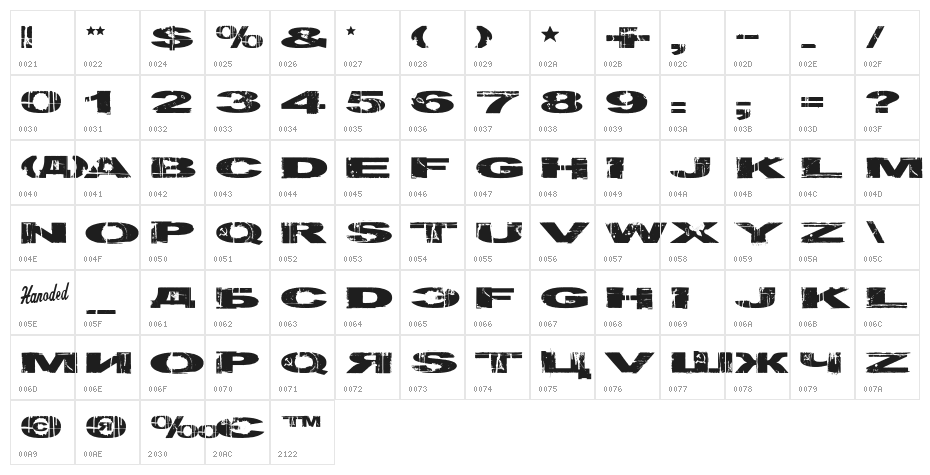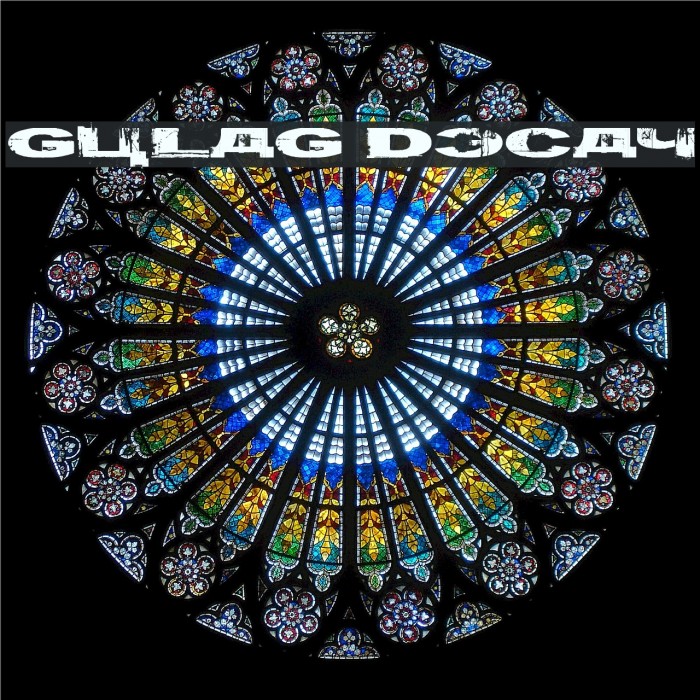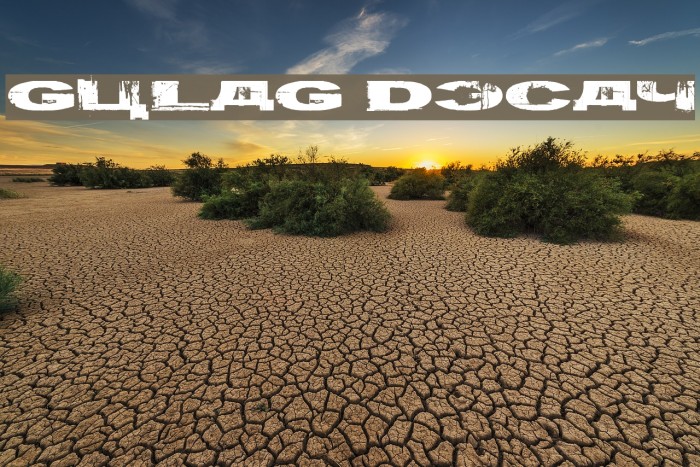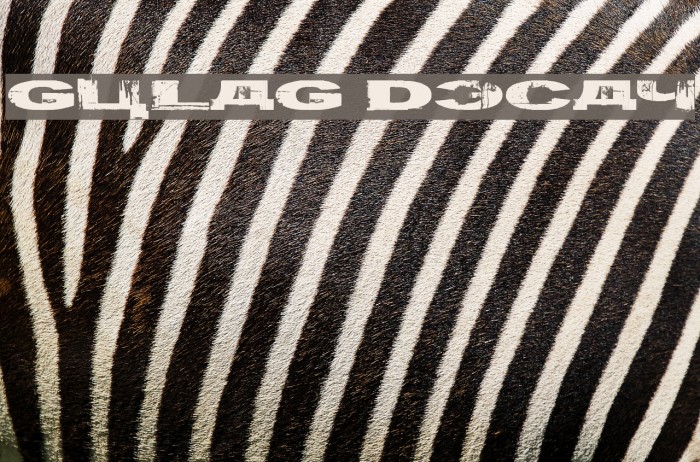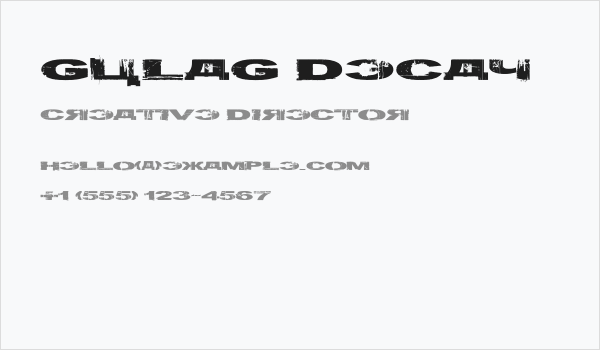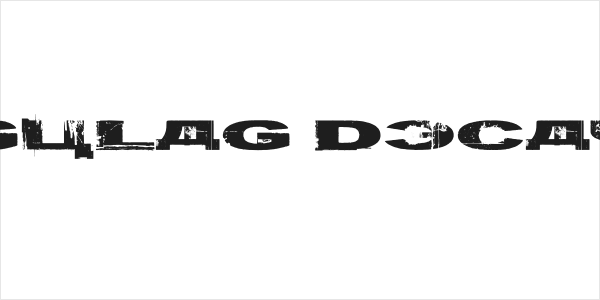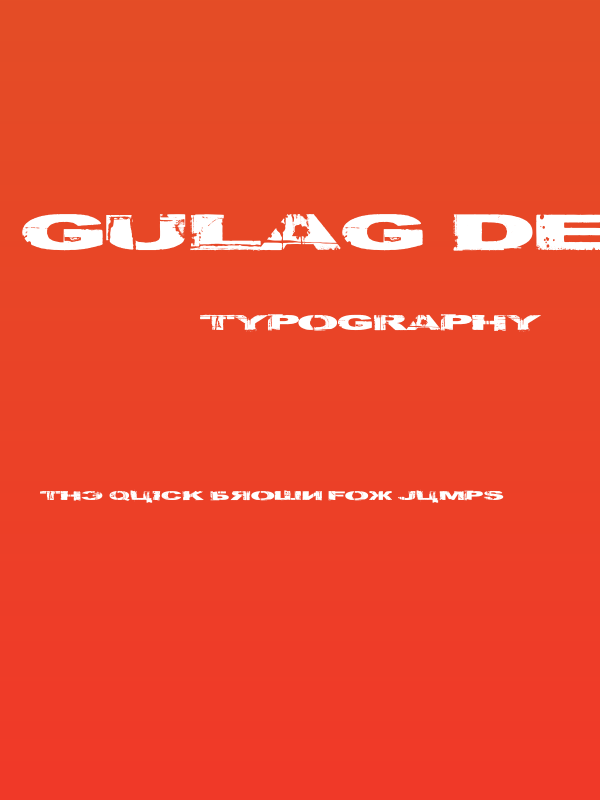
Gulag Decay Font
Gulag Decay Description
This font features a distressed, grunge aesthetic with a bold and impactful presence. Each character appears as if it has been weathered or eroded, giving it a rugged and raw look. The uppercase and lowercase letters maintain a consistent style, with jagged edges and uneven surfaces that suggest a sense of decay or wear. The numbers and special characters follow the same design principles, ensuring a cohesive appearance across all glyphs. This font's unique style makes it stand out, offering a visually striking option for projects that require a bold statement.
Overall StyleGrunge, Distressed
Proposed ProjectsIdeal for album covers, posters, urban-themed designs, or any project needing a gritty, edgy look.